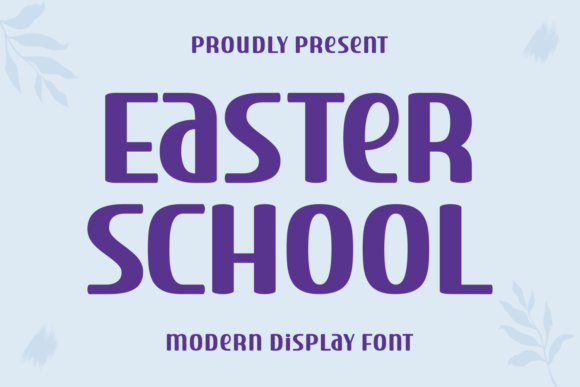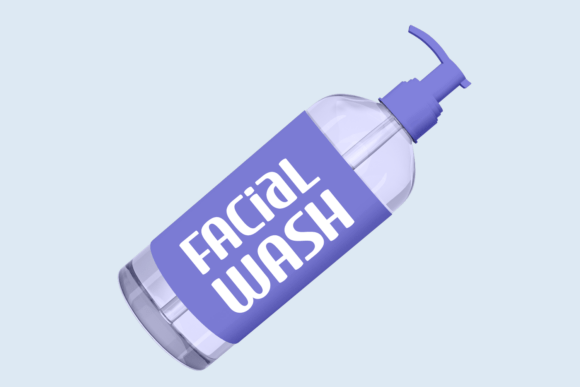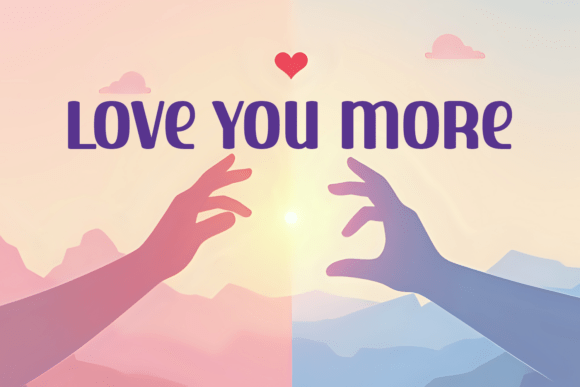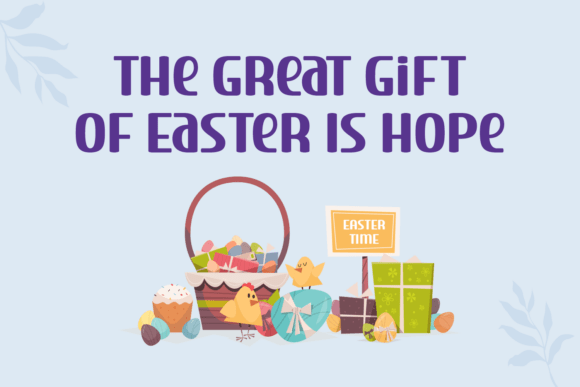
Easter School Font: A Cute & Playful Display Font for Kids!
About the Easter School Font
Let us introduce you to Easter School Font, where timeless design meets modern craftsmanship. Introducing Easter School is a playful yet sophisticated typeface that dances across the page. Infuse a touch of whimsy into your corporate branding, or steal the show with posters that pop. This is the go-to School and Teacher font, engaging young minds with its cheerful personality.
A delightful addition to any kids craft project, this adorable font will surely captivate little hearts. The Easter School shines in fun, cute designs and breathes life into clothing graphics. It also spirals into beautiful quotes and striking notes. And last but not least, bring a fresh bout of spring air with this perfect Easter font, adding a touch of magic to all your seasonal celebrations.
Easter School Font Usage Examples
Easter School Font Example